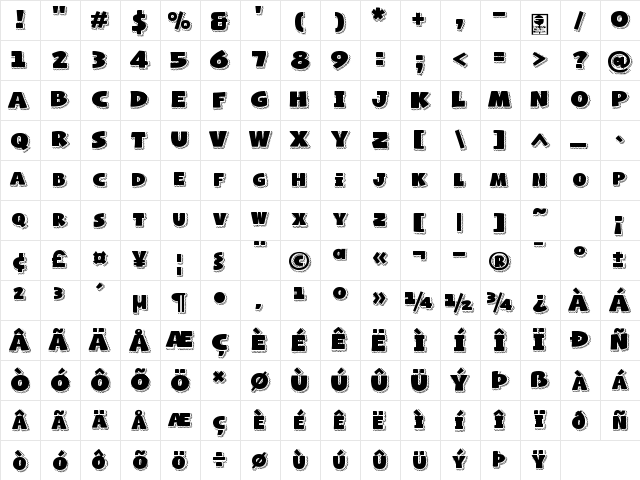
Naughty Squirrel Shadowed Demo Regular
Design Context for Naughty Squirrel Shadowed Demo Typeface
Naughty Squirrel Shadowed Demo brings ornamental detail and strong personality to headlines and identities, where visual impact matters more than quiet functionality.
Font Pairing: Pair with a clean neutral sans-serif for body copy to let Naughty Squirrel Shadowed Demo's character lead without overwhelming the composition.
Pro Tip: Treat Naughty Squirrel Shadowed Demo as the centrepiece of your typographic hierarchy. One strong heading set in a decorative face can carry an entire layout.